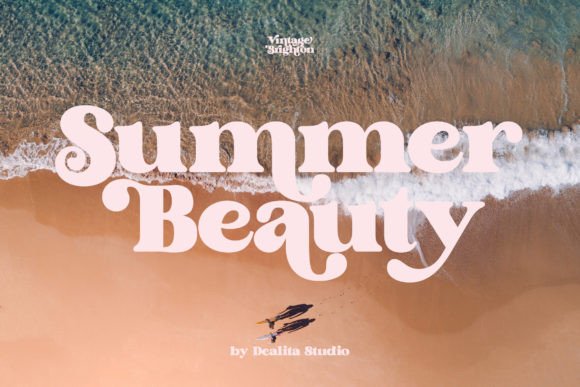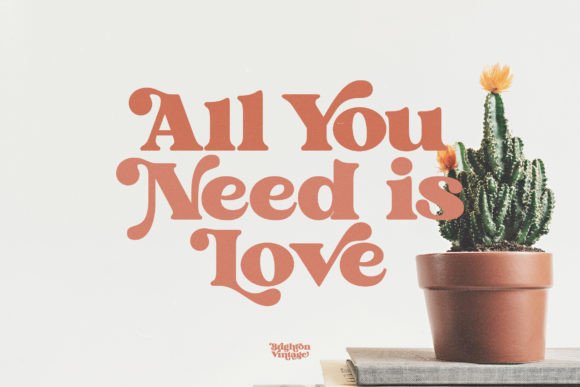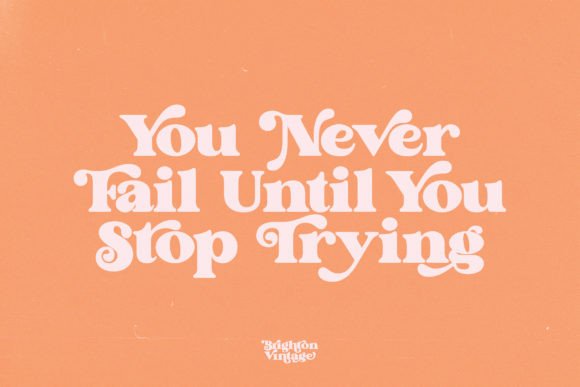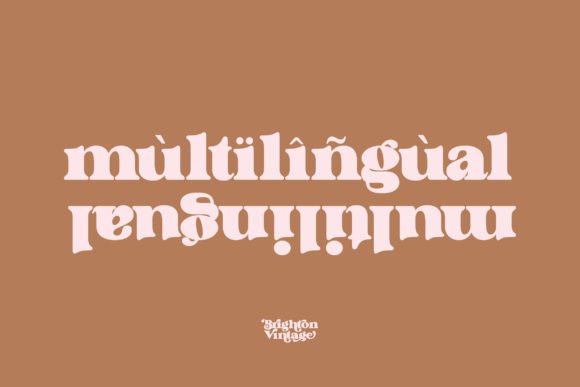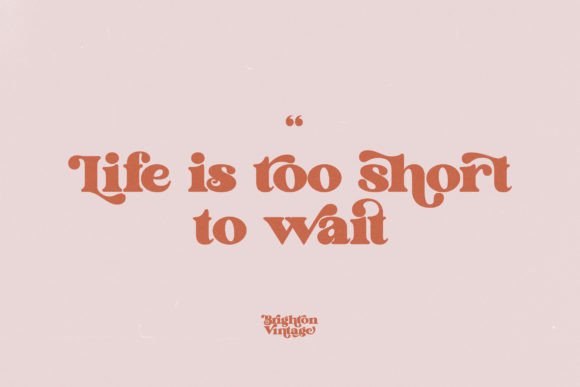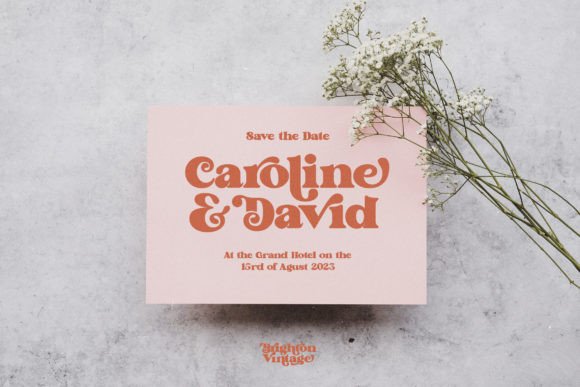
Introducing Brighton Vintage Font: The Perfect Blend of Retro and Bold
Are you a designer or crafter looking for a font that exudes a sense of nostalgia and sophistication? Look no further than the Brighton Vintage Font. This stylish font is a perfect blend of retro and bold, making it ideal for a wide range of design projects.
A Font that Embodies the 70s Groovy Vibe
Brighton Vintage Font is characterized by its thick curves, which give it a distinctly retro feel reminiscent of the 1970s. The serifs add a touch of tradition, balancing out the boldness of the font and making it suitable for a variety of formal applications. Whether you’re designing a logo, invitation, or packaging, this font is sure to make a statement.
Brighton Vintage Font is a versatile font that can be used for a wide range of design projects, including:
- Logos: Create a bold and eye-catching logo that will set your brand apart from the competition.
- Invitations: Add a touch of elegance and sophistication to your invitations, whether it’s for a wedding, birthday party, or formal event.
- Labels: Create labels that are both functional and stylish, perfect for products, packaging, or crafts.
- Magazines and Books: Use Brighton Vintage Font to add a touch of nostalgia and character to your publications.
- Greeting and Wedding Cards: Create beautiful and heartfelt cards that will make a lasting impression.
- Packaging: Add a touch of retro charm to your product packaging and make it stand out on store shelves.
- Fashion and Makeup: Use Brighton Vintage Font to create stunning branding and marketing materials for your fashion or makeup business.
- Stationery: Create stylish and functional stationery that will make your correspondence stand out.
- Novels and Labels: Use Brighton Vintage Font to add a touch of character to your novels, labels, or any other type of written content.
One of the best features of Brighton Vintage Font is that it is PUA encoded, which means you can access all of the amazing glyphs and ligatures with ease. This makes it easy to customize your designs and add unique touches that will make them stand out.
Why Choose Brighton Vintage Font?
There are many reasons why Brighton Vintage Font is a great choice for designers and crafters, including:
- Unique and stylish design that will make your designs stand out.
- Versatile and can be used for a wide range of design projects.
- PUA encoded for easy access to glyphs and ligatures.
- Retro feel that will add a touch of nostalgia to your designs.
- Bold and eye-catching, making it perfect for logos and headlines.
Tips for Using Brighton Vintage Font
Here are a few tips for using Brighton Vintage Font in your designs:
- Use it as a headline font to add a touch of drama and emphasis.
- Pair it with a sans-serif font for a bold and modern contrast.
- Experiment with different colors and textures to add depth and interest.
- Use it to create custom illustrations and graphics that will make your designs stand out.
Brighton Vintage Font is a stylish and versatile font that is perfect for designers and crafters looking to add a touch of retro charm to their designs. With its thick curves, serifs, and PUA encoding, it’s a great choice for a wide range of design projects. Whether you’re creating logos, invitations, packaging, or any other type of design, Brighton Vintage Font is sure to make a statement.